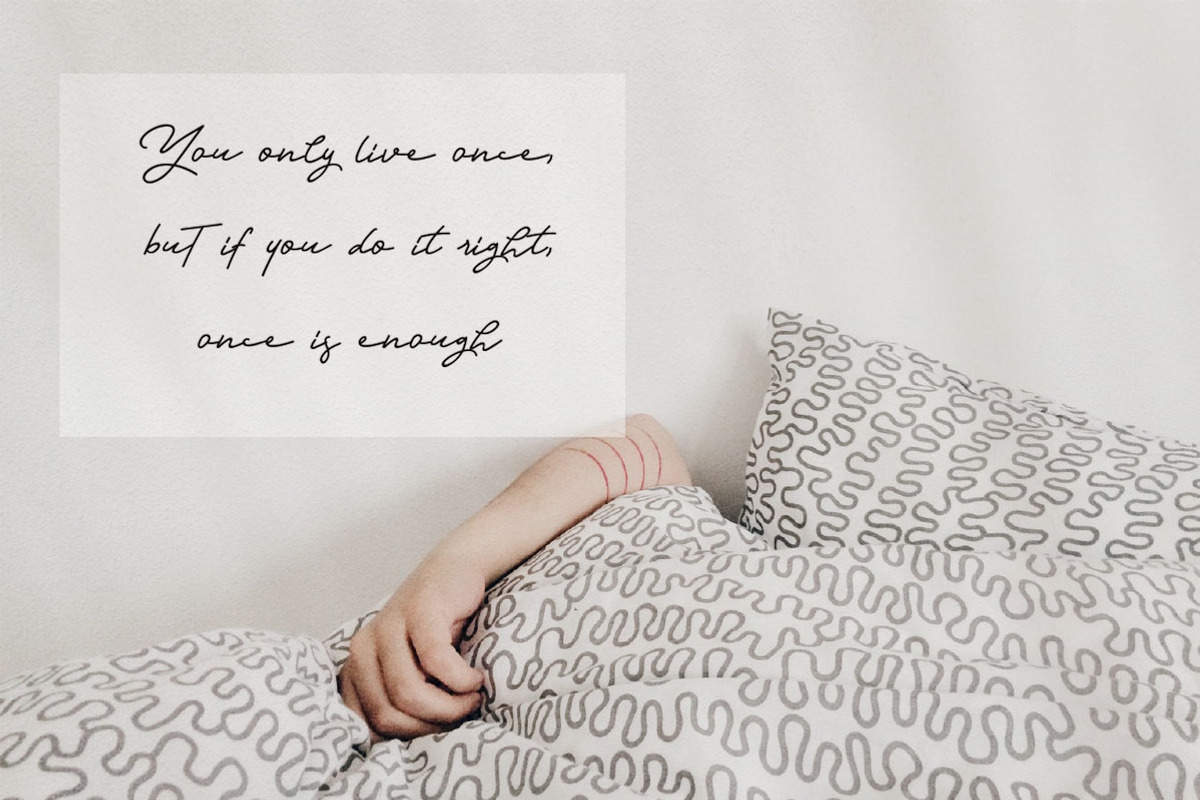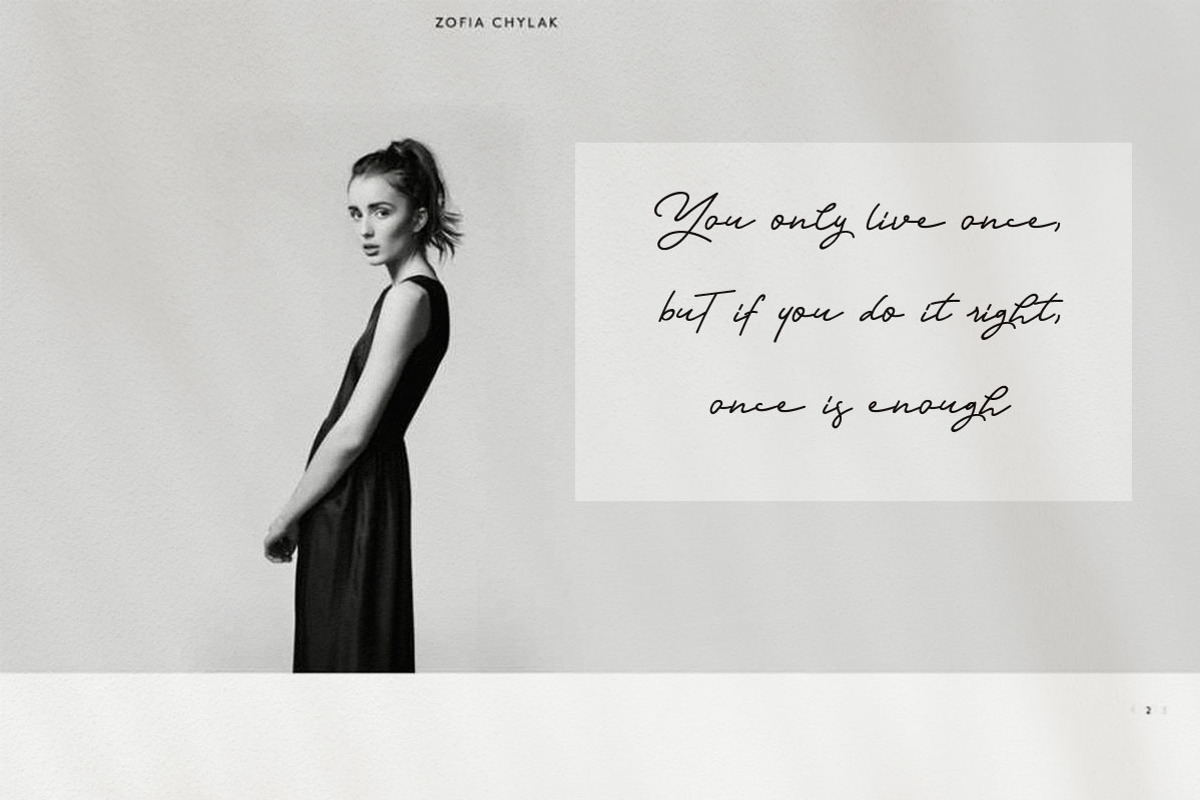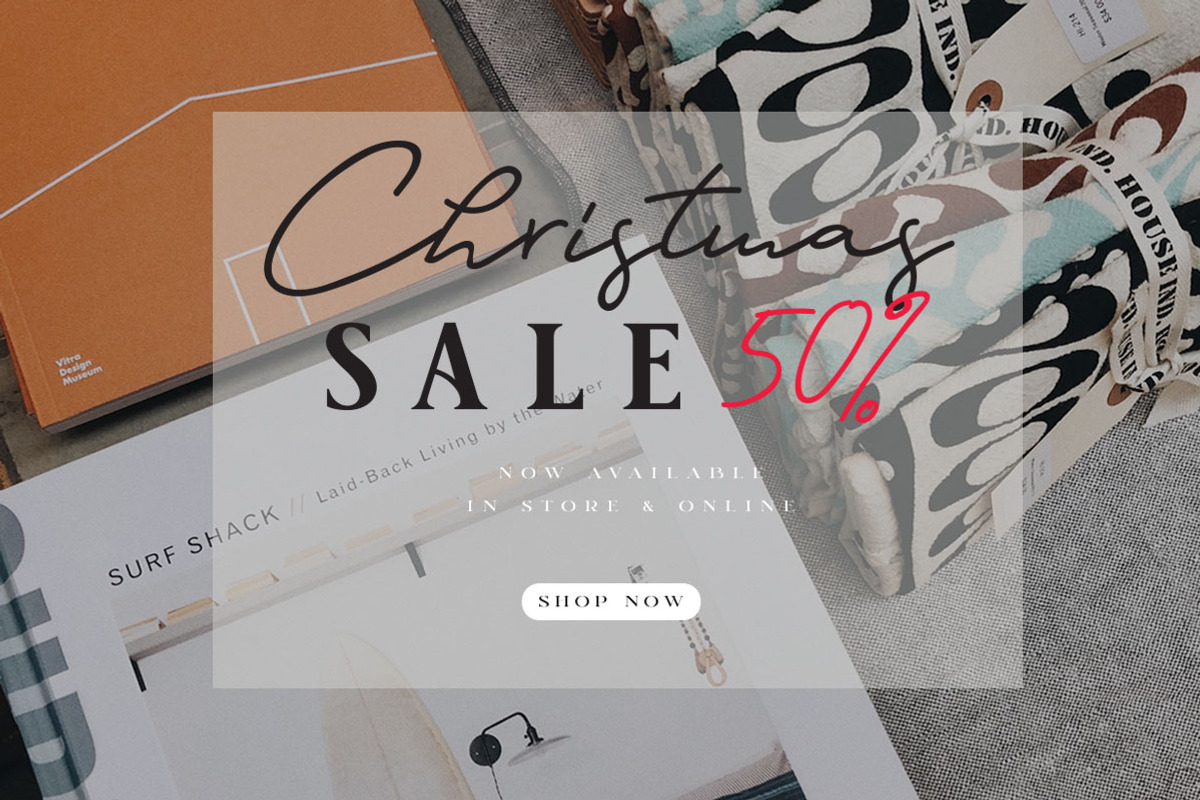
Orlando Signature + Extra Logo
Anxiety studio re-issued a new product, namely Orlando Signature. Orlando Signature is a signature script font that is very elegant, luxurious, relaxed, modern, and beautiful. This font is unique with one line that makes your project more impressed and interesting. Orlando signature is also equipped with alternates and ligature features, which can make your works and projects better and different from the others.
Orlando signature is suitable for projects, logos, branding, mockups, websites, packaging, headlines, clothes, posters, quotes, greeting cards, business cards, wedding invitations, and others. This font gives a fancy logo bonus that can be edited.
Contemporary handwriting fonts with ligatures and alternative styles ready to add unique look and bloom on your design. Stylistic Alternates: change any letters, open the glyphs panel and you can choose the letter as needed
Standard Ligatures: If you have opentype software, 'Discretionary Ligatures' can be turned on for the Script fonts, which will automatically switch standard letter pairs into the provided ligatures.